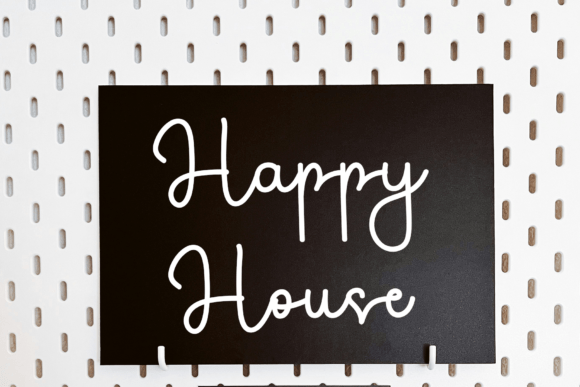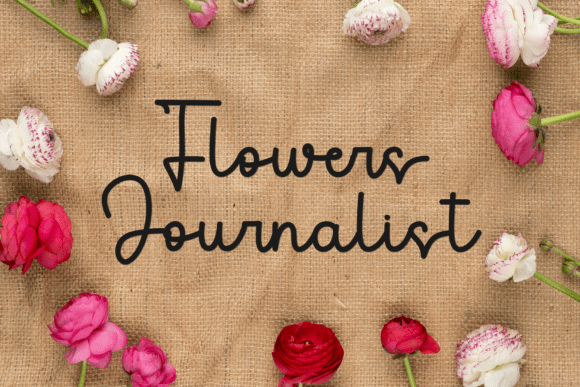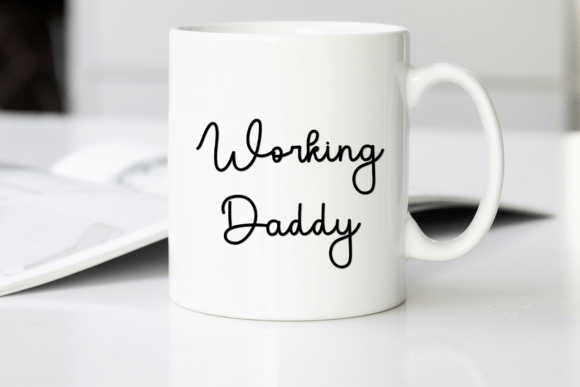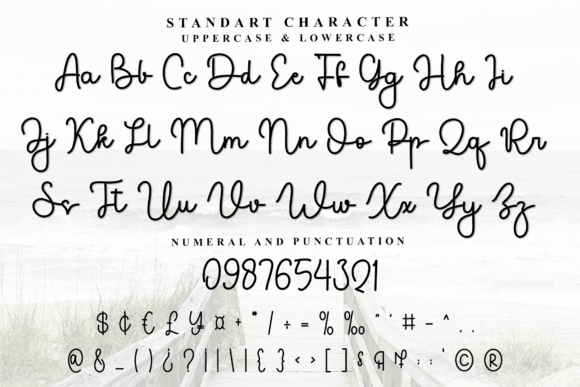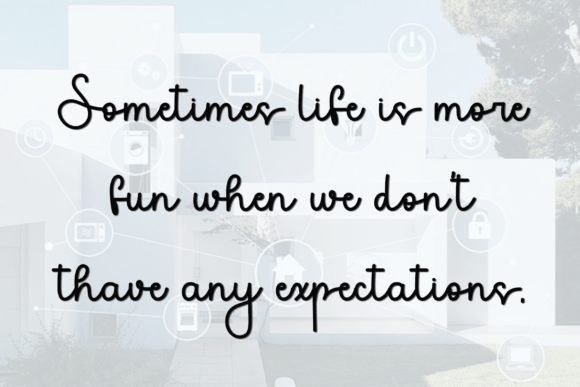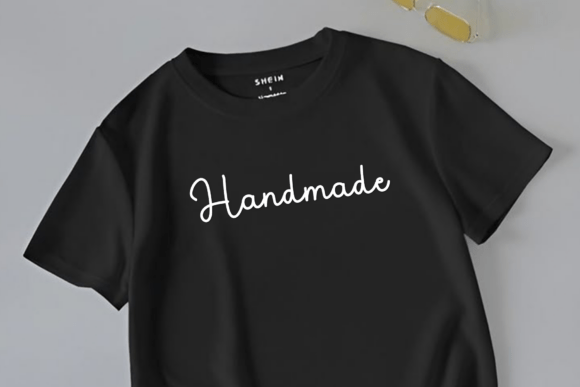
The Art of Beautiful Typography: Unlocking the Power of Calligraphy Font
Do you remember the moment when you first fell in love with a beautiful handwritten note or a decorative sign? Maybe it was a wedding invitation or a birthday card that caught your eye, and you couldn’t help but appreciate the delicate strokes and unique flair of the handwritten text. That’s the magic of Calligraphy Font – a beautiful and eye-catching typeface that adds a personal touch to any design project.
With its soft, unique strokes and distinctive character, Calligraphy Font is perfect for designers looking to add a touch of elegance and sophistication to their work. Whether you’re working on a branding project, a craft design, or a creative writing piece, this versatile font is sure to make your designs stand out. Its compatibility with various applications, including Windows and open-source platforms, makes it a valuable asset for designers who want to take their work to the next level.
Calligraphy Font Key Features
- Font Style: Elegant, cursive, and handwritten font style suitable for formal and decorative purposes.
- Unique Characteristics: Includes ligatures, swashes, and flourishes, adding a touch of sophistication and elegance to text.
- Language Support: Supports a wide range of languages, including Latin, Greek, and Cyrillic alphabets, making it a versatile font for global applications.
Calligraphy Font Review
Overall, I think the Calligraphy Font is a beautiful addition to any design project. ✨ Its elegant and flowing lines make it perfect for creating a sense of luxury and sophistication. I’ve used it for wedding invitations and it looks stunning. The font is highly customizable, allowing you to adjust the size, color, and spacing to fit your needs.
However, there are a few limitations to be aware of. ⚠️ The font can be quite difficult to read in smaller sizes, which may be a problem for body text. Additionally, the font doesn’t come with a bold weight, which can make it harder to create clear headings.
Here are some key features to consider:
- Beautiful, elegant design ✨
- Perfect for wedding invitations, luxury branding, and high-end designs
- May be difficult to read in smaller sizes ⚠️
- No bold weight available ⚠️
Overall, I think the Calligraphy Font is a great choice for designers looking to add a touch of elegance to their projects. With a little creativity and experimentation, it’s easy to work around its limitations and create stunning designs.